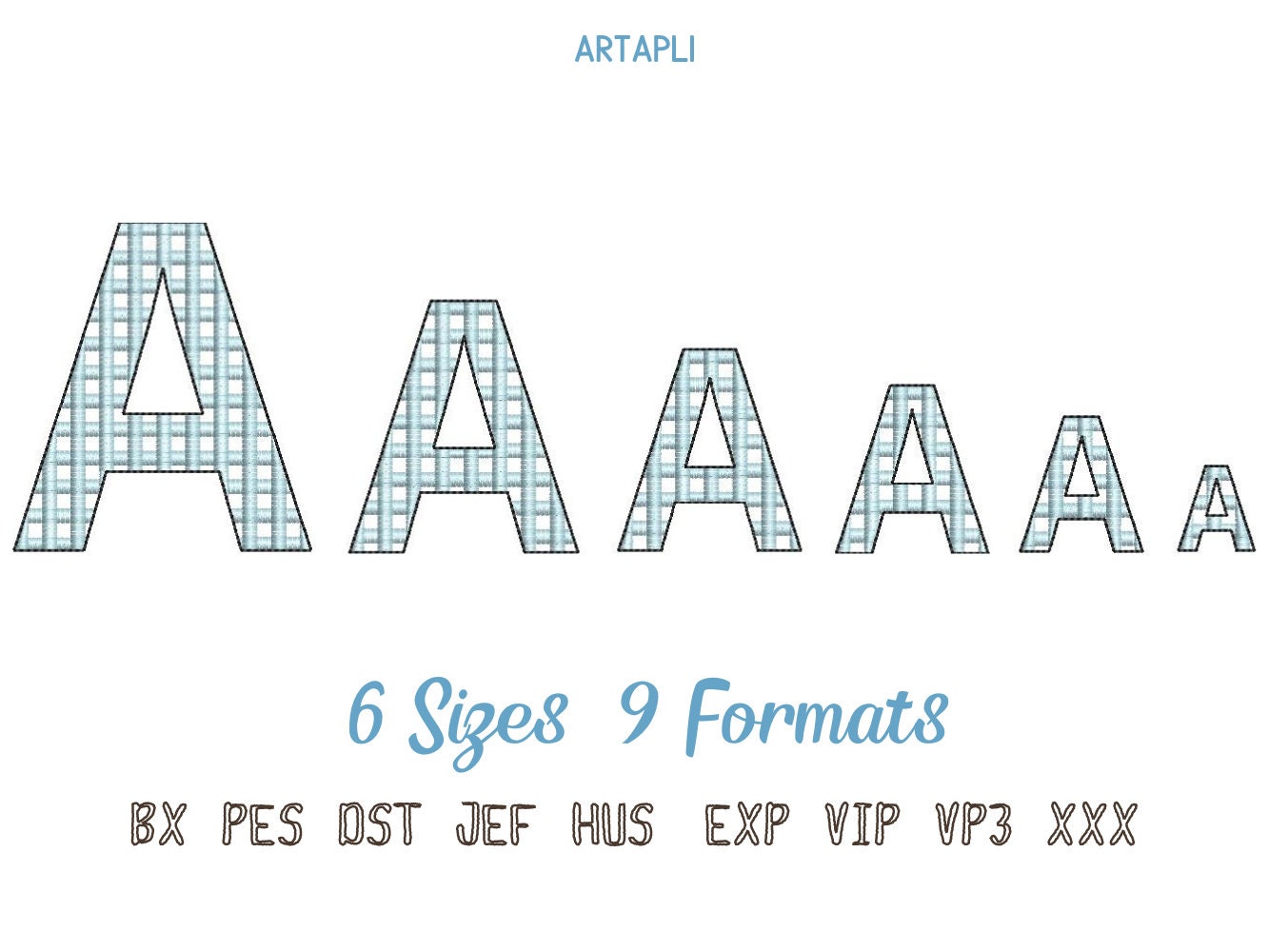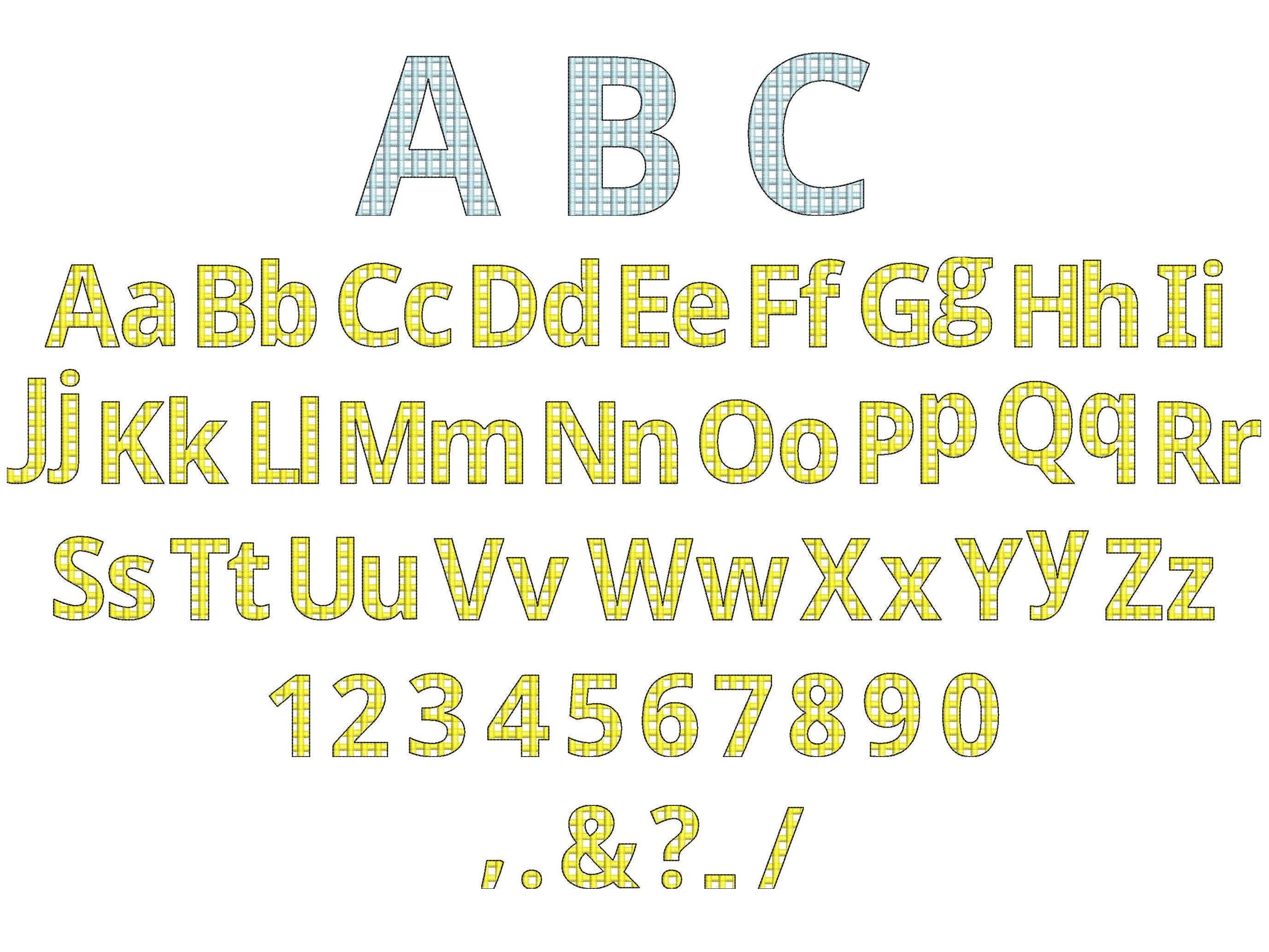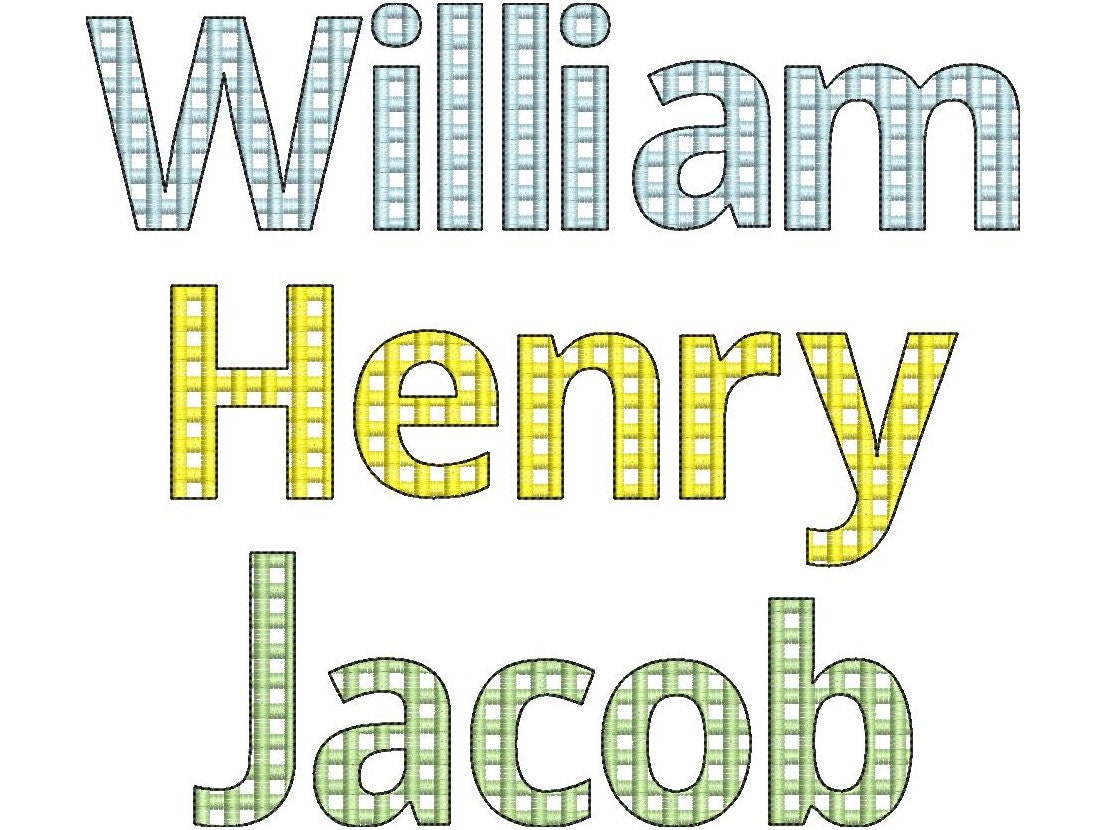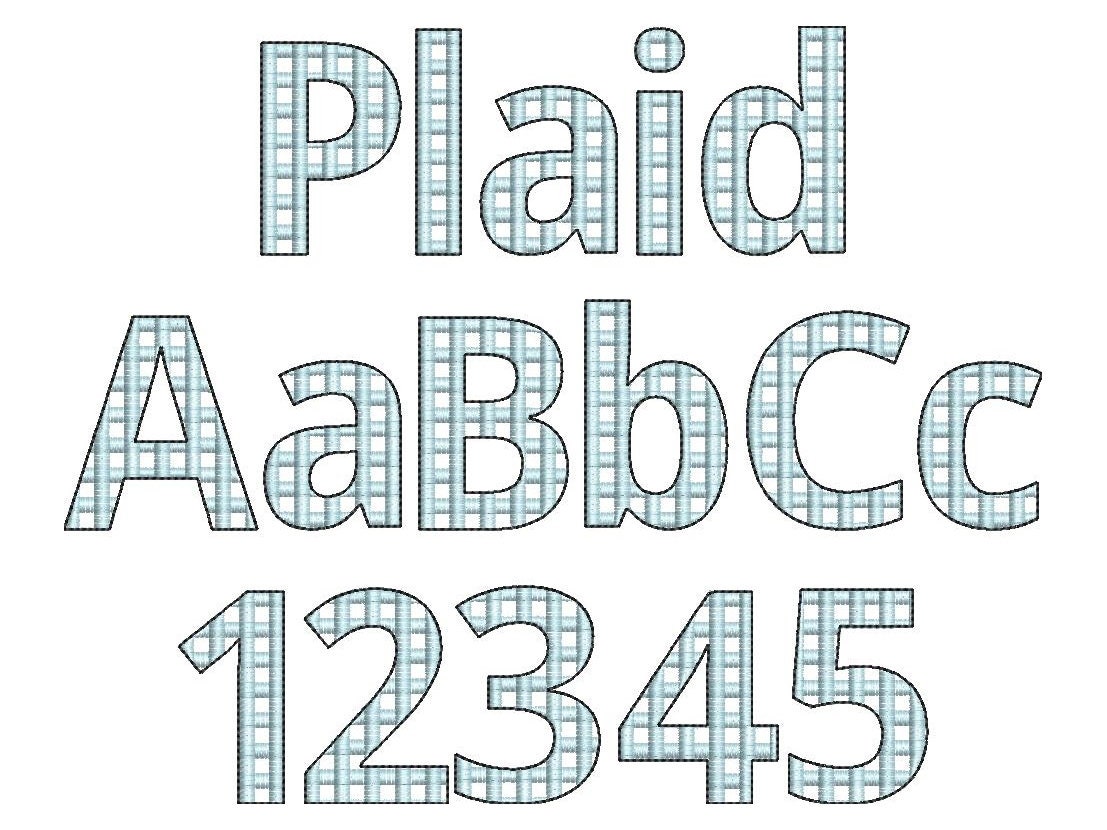
Buffalo Checkered Plaid Font light sketch outline machine embroidery designs font alphabet kids name monogram letters in assorted sizes, BX
This is a quick stitch design, the background fabric looks through. Stunning effect. The checkered print is a part of the embroidery.
Whole alphabet - uppercase and lowercase, numbers and punctuation & . , - ? ! /